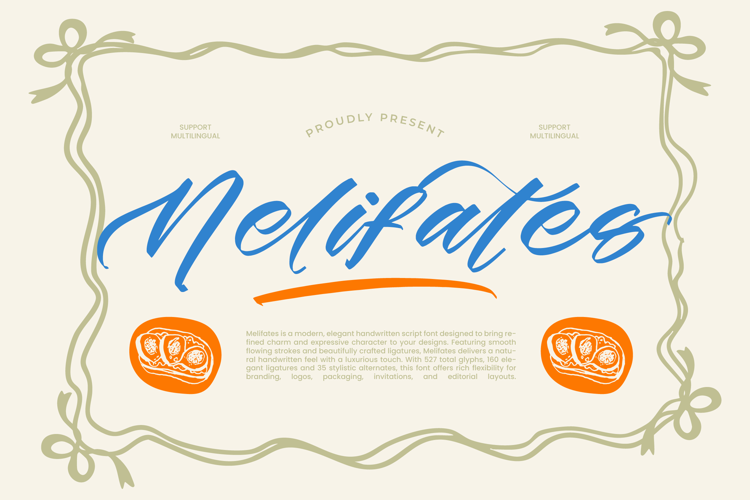
Melifates - Modern Elegant Handwritten Script
Expand your creative horizons and reach international audiences effortlessly. With its extensive multilingual support, Melifates - Modern Elegant Handwritten Script adapts seamlessly across global markets, making it incredibly versatile for international projects. Invest in this typeface today to secure a refined, elegant tool that guarantees maximum impact and enduring design success in every language and application.